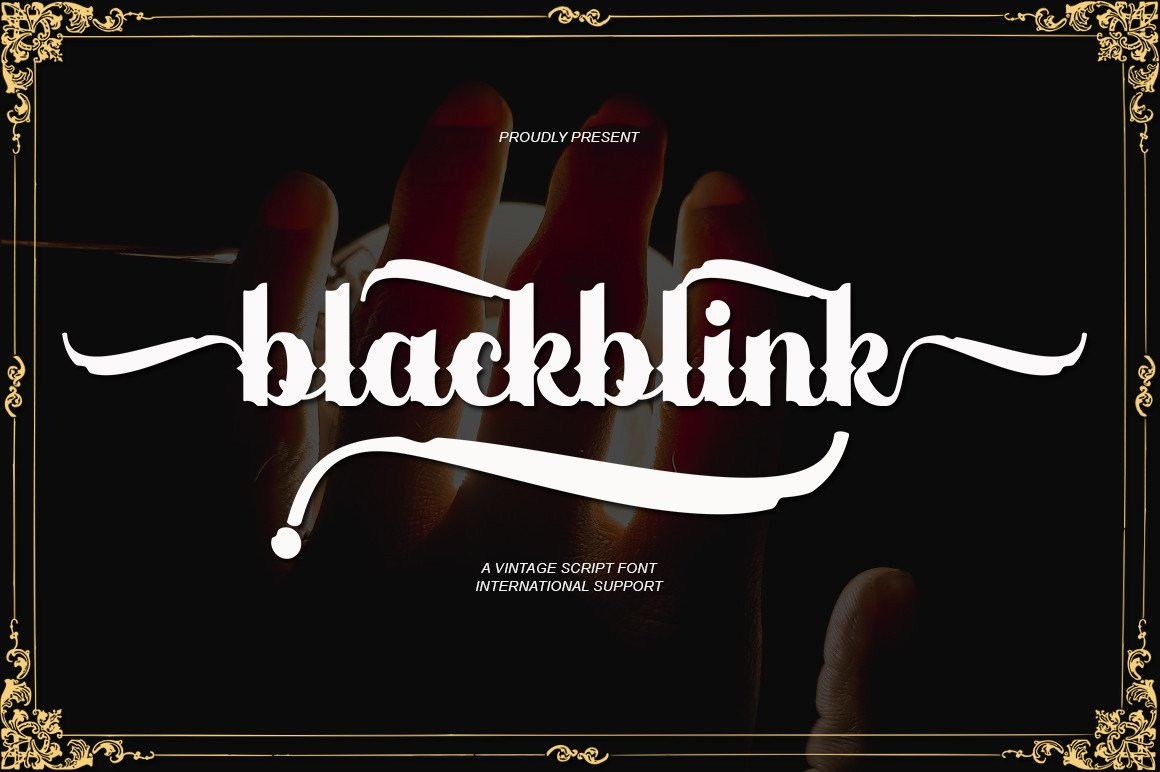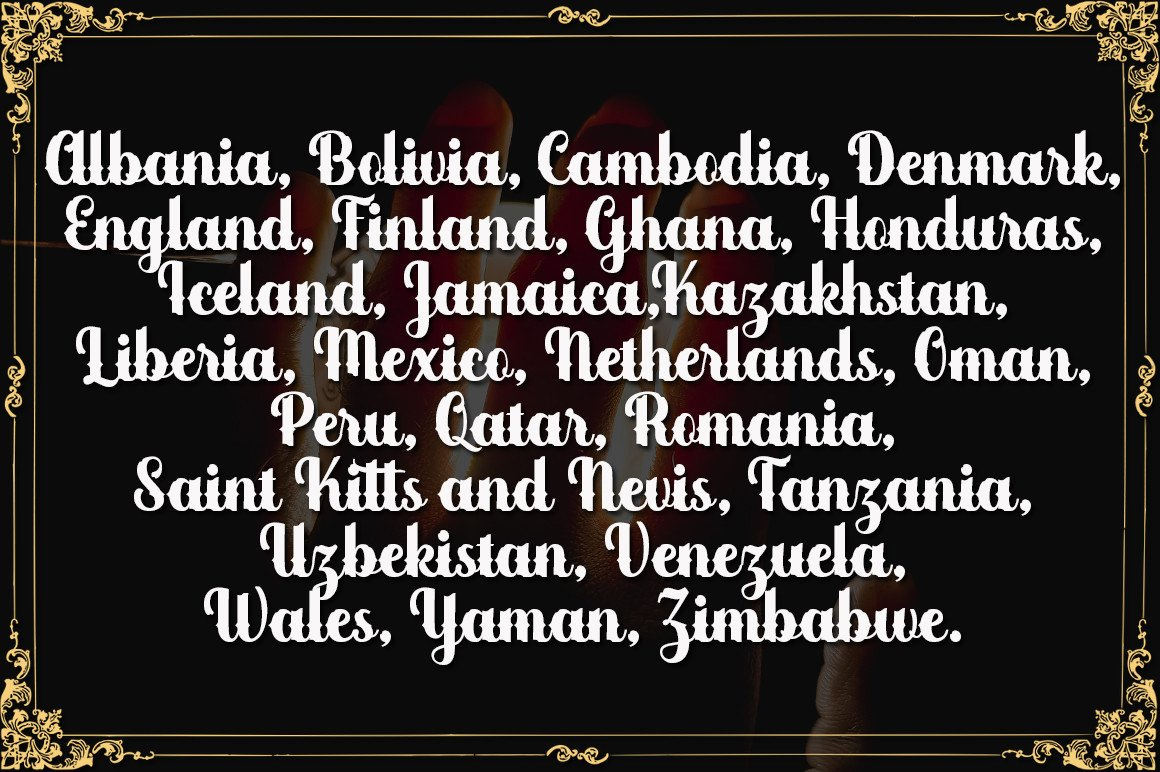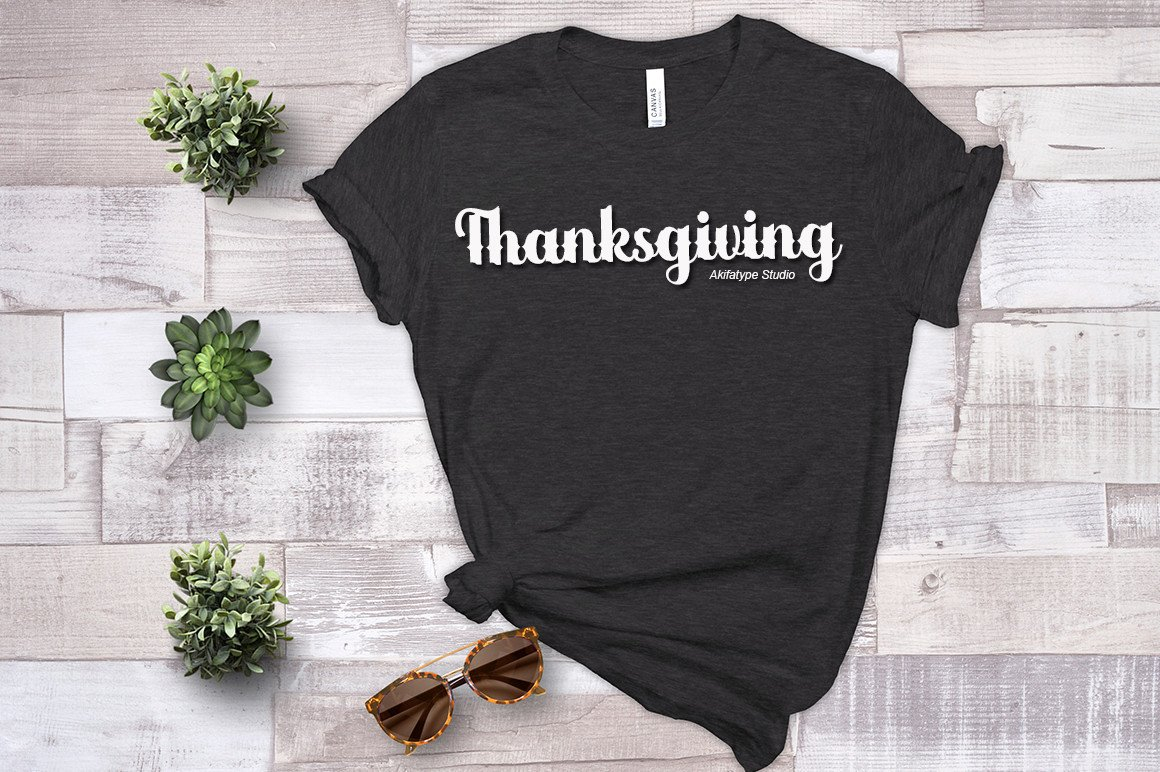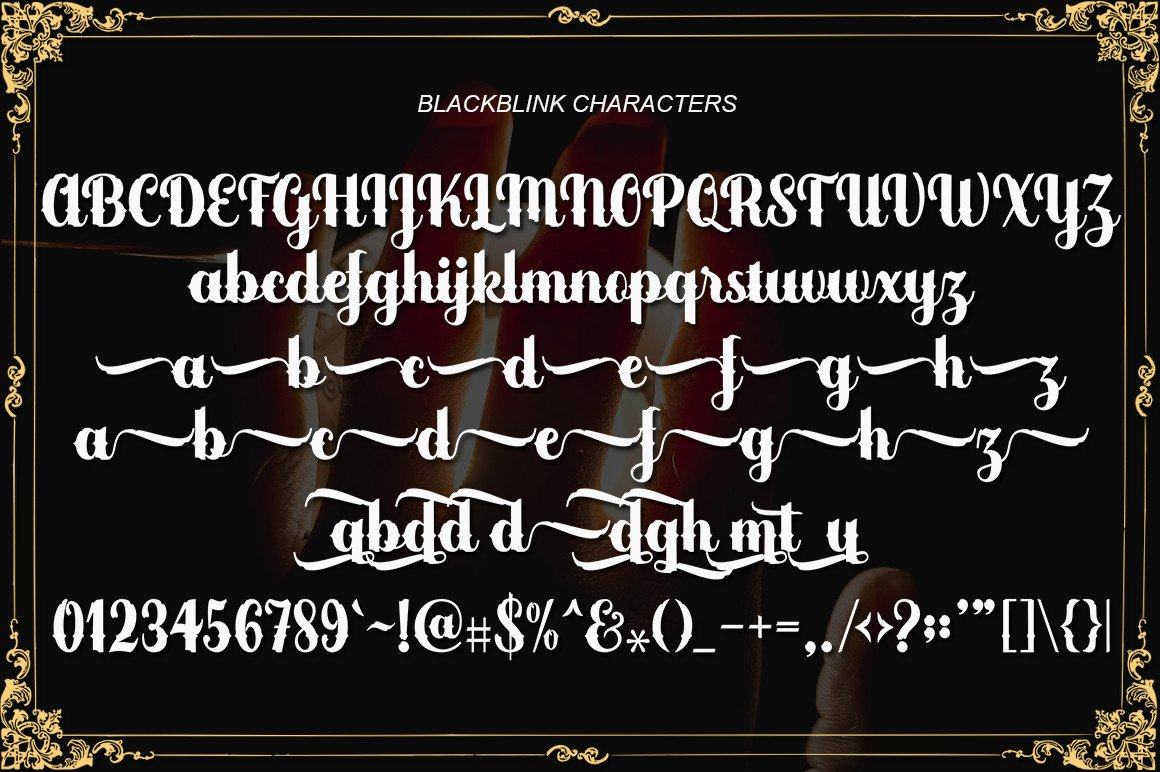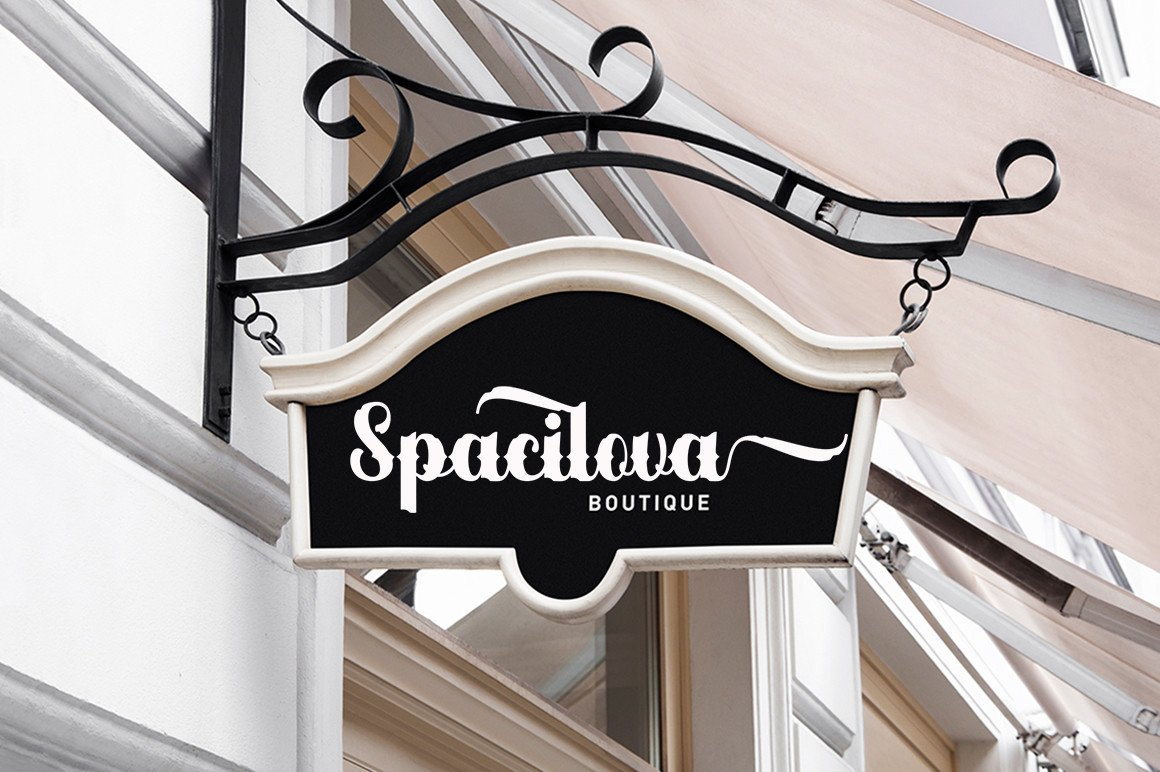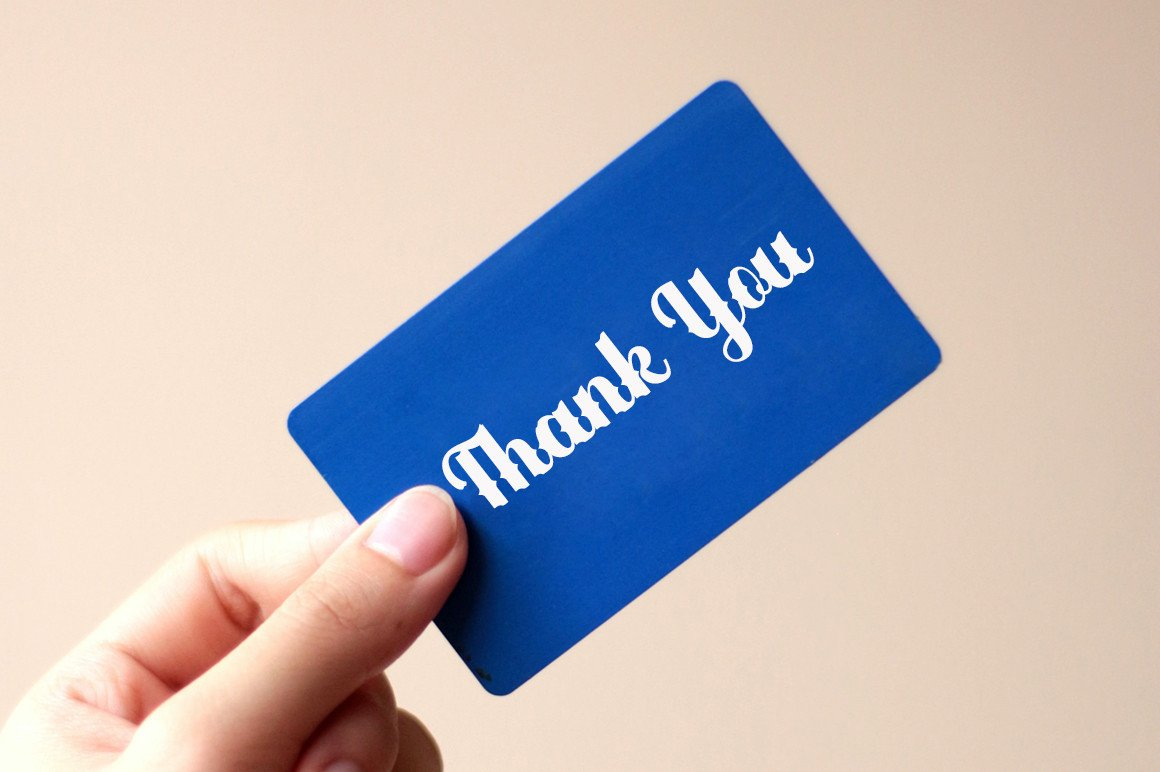
Blackblink Font
About Blackblink Font
Blackblink is a beautiful vintage calligraphy typeface.
This font can be used easily and simply because there are many features in it that can take your design from good to extraordinary!